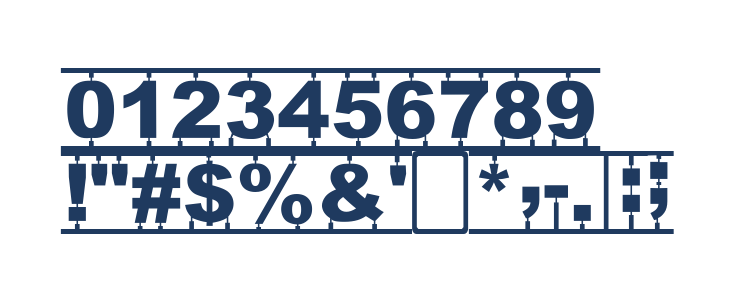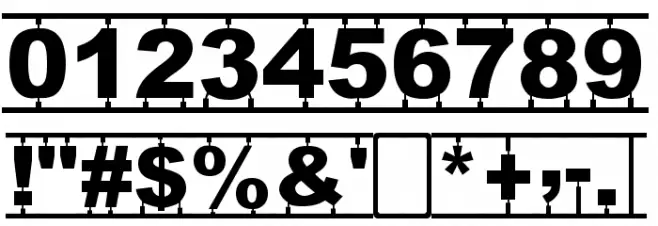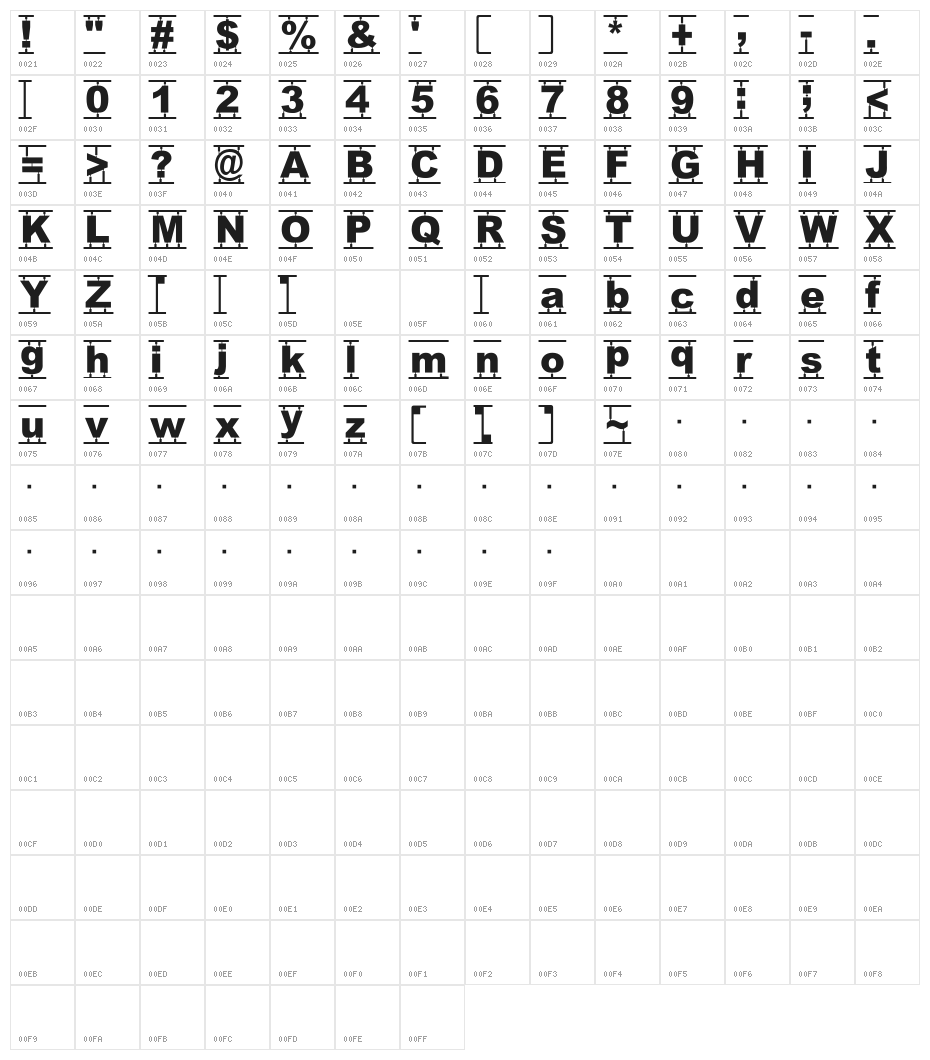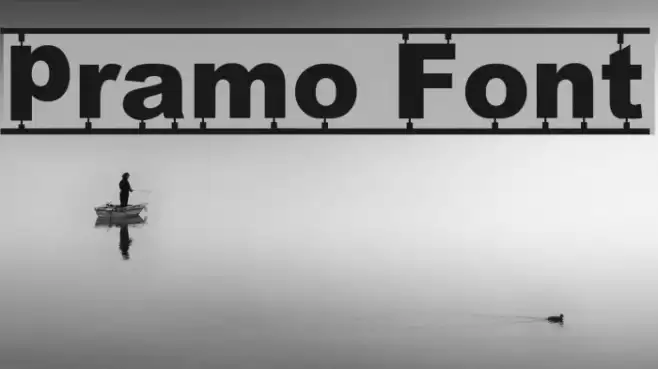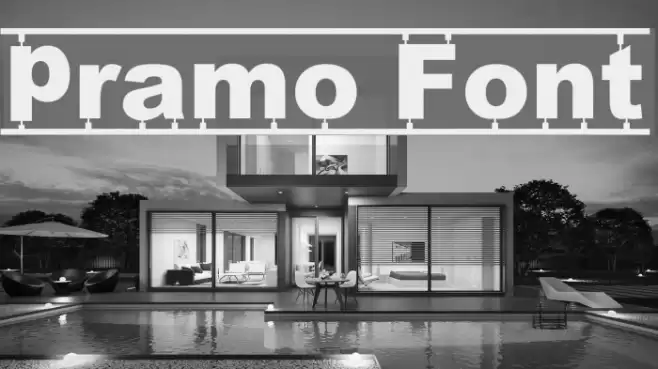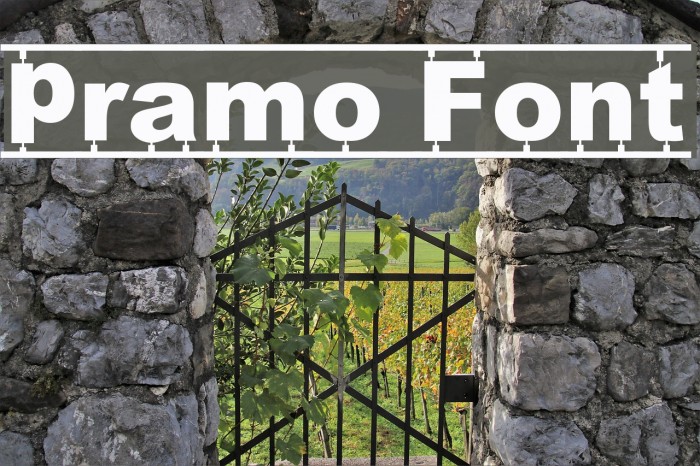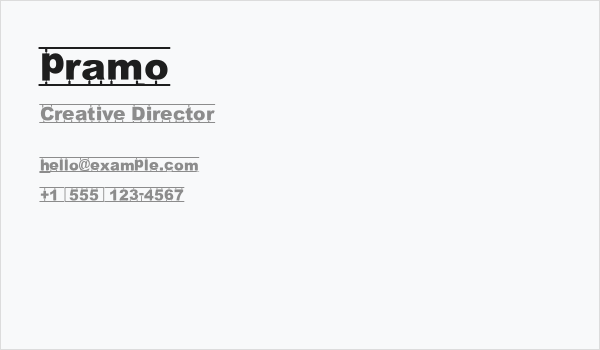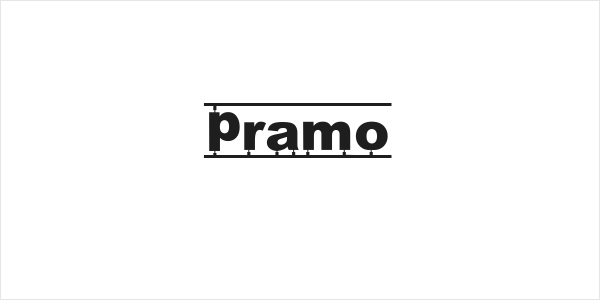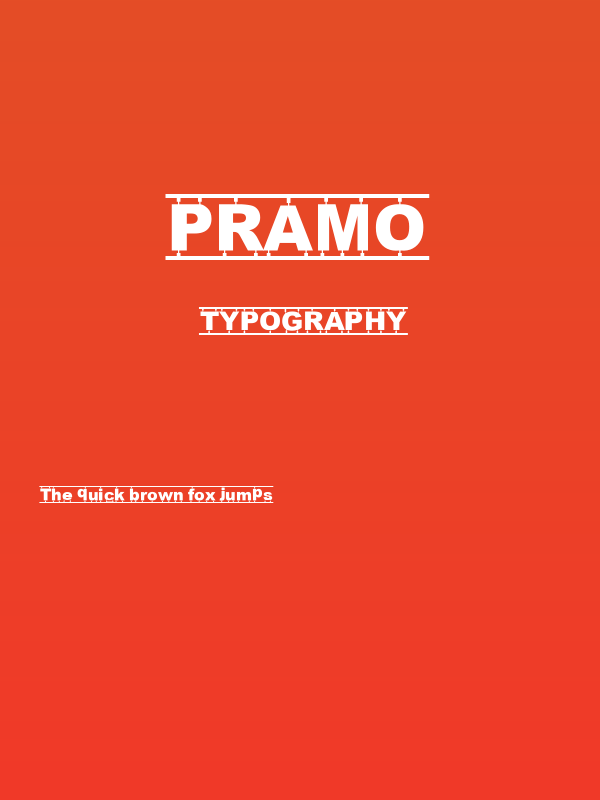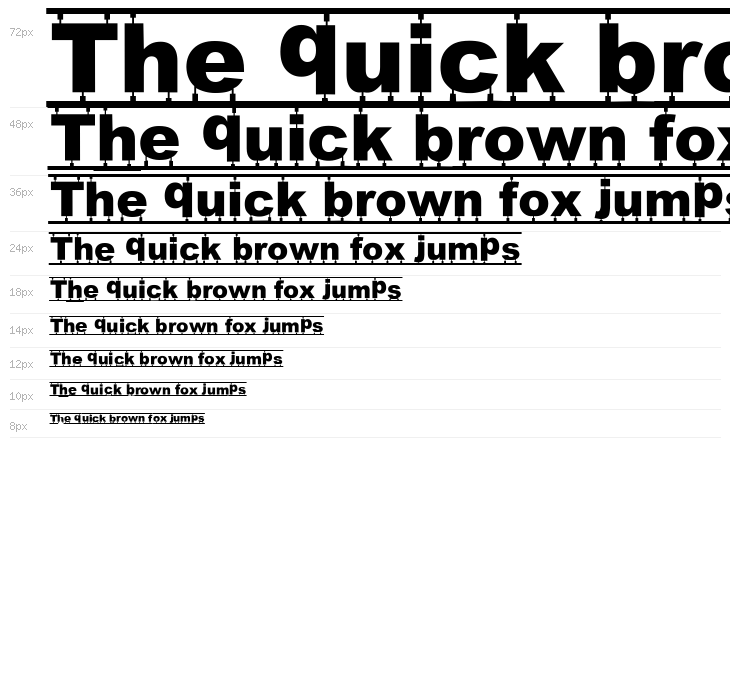
pramo Font
pramo Description
This font features bold, strong lines with a uniform stroke width, giving it a robust and impactful appearance. The characters are well-defined with a modern aesthetic, making it suitable for attention-grabbing designs. The uppercase and lowercase letters maintain a consistent style, with rounded edges that soften the overall look. The numerals are clear and easy to read, while the special characters are distinct and well-integrated into the font's design. This font's boldness and clarity make it ideal for various applications where readability and emphasis are key.